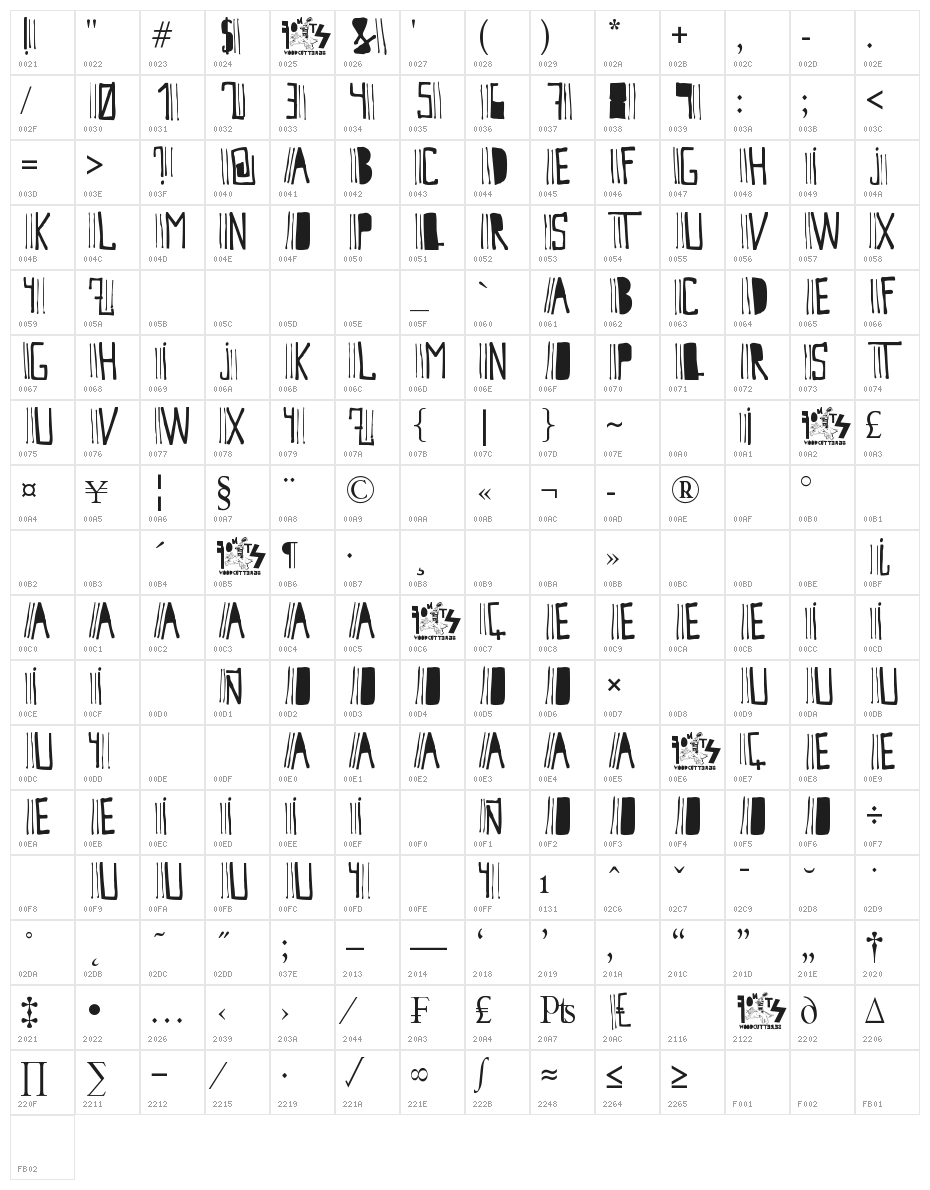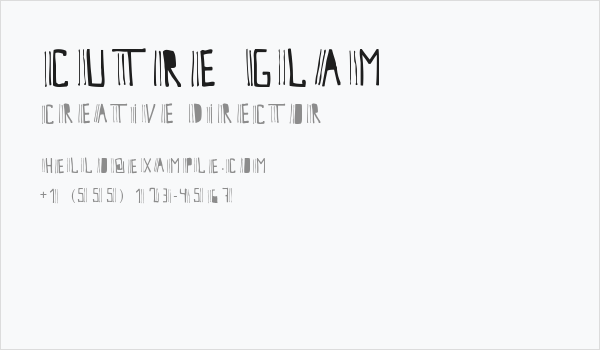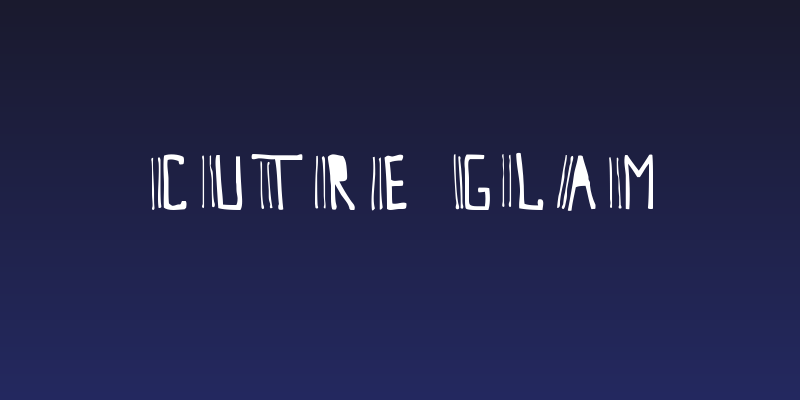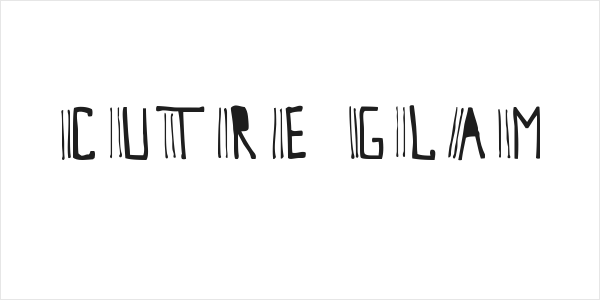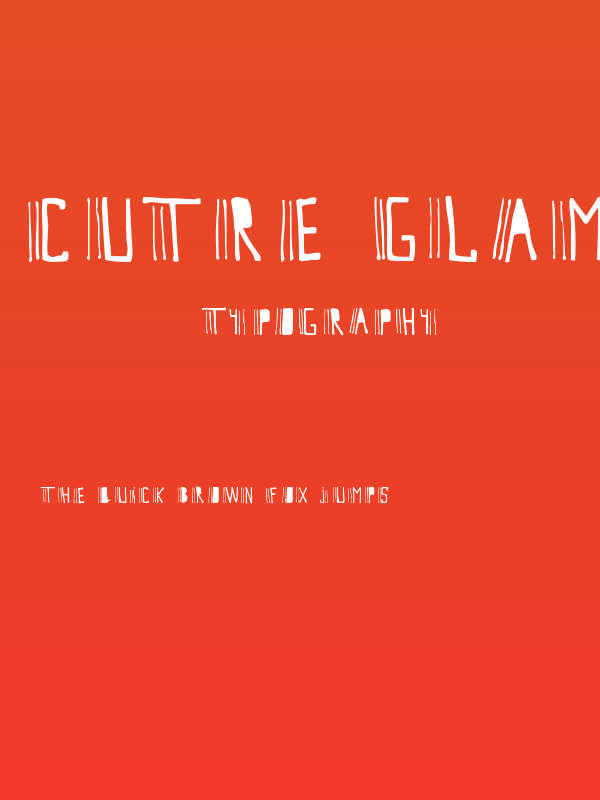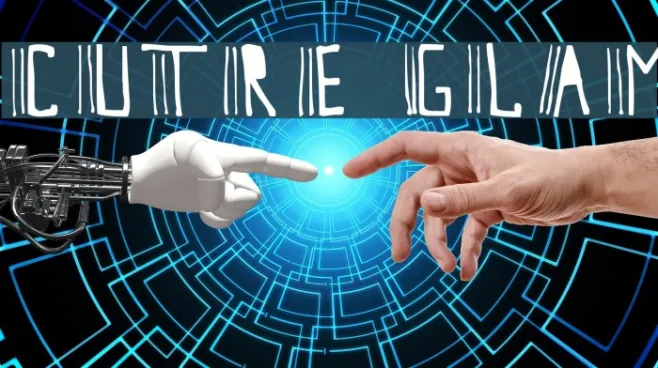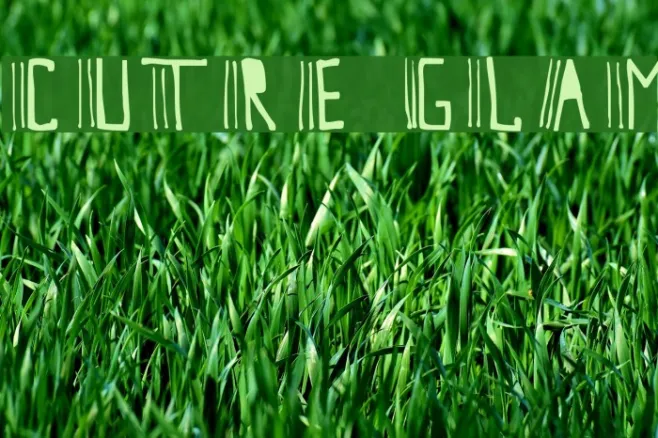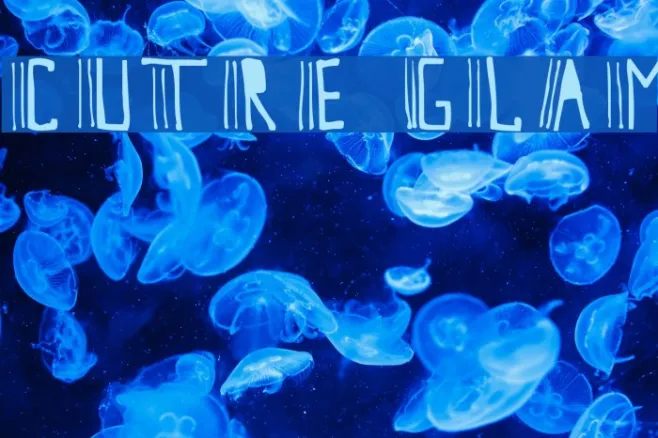
Cutre Glam Font
Cutre Glam Description
This font features a unique and artistic design with a hand-drawn appearance. The characters are composed of irregular, vertical lines that give them a textured, almost woodcut-like effect. The uppercase and lowercase letters maintain a consistent style, with the uppercase being slightly more pronounced. Numbers and special characters follow the same design principles, providing a cohesive look across all glyphs. The font's playful and creative style makes it stand out, perfect for projects that require a distinctive and unconventional typeface.
| Proposed Projects | Ideal for artistic projects, posters, album covers, and creative branding that require a unique and eye-catching typeface. |